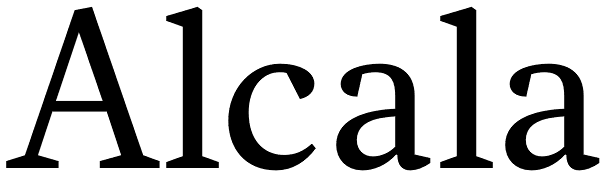
Alcala
This font is based on the study of the document titled "Biblia poliglota complutense" aka "Bible polyglotte d'Alcala". It was the first edition of a complete polyglot Bible as well as the first printed version of New Testament in Greek, of the...